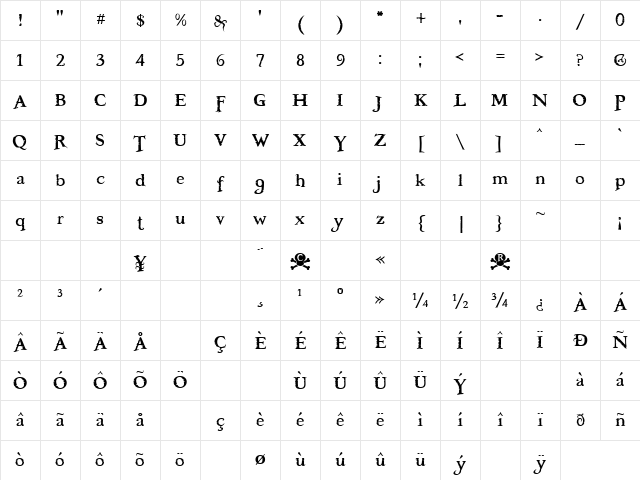
Freebooter Regular Free Font
Freebooter Regular
Freebooter Family
Design Context for Freebooter
Freebooter is a composed and adaptable typeface that performs quietly and consistently across a wide range of design contexts.